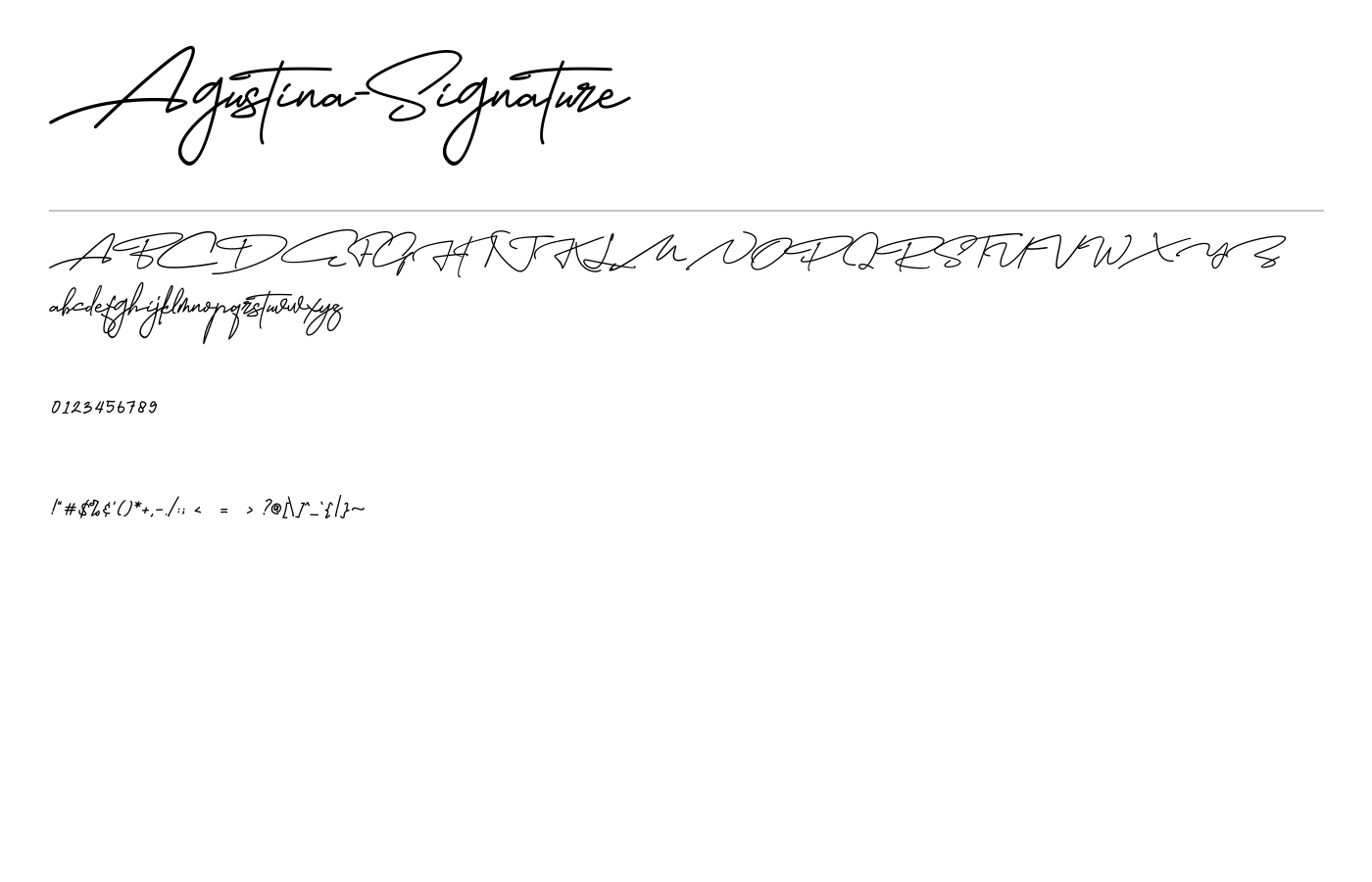
Agustina-Signature is a delicate, handwritten script font that captures the effortless flow of a personal signature with fine, elegant strokes and a natural, cursive style. Its light weight and airy spacing give it a sophisticated yet approachable feel, making it perfect for branding, invitations, and stylish editorial designs that seek a personal and refined touch. This font works beautifully where a sense of elegance and individuality is desired without sacrificing clarity.
Agustina-Signature Font